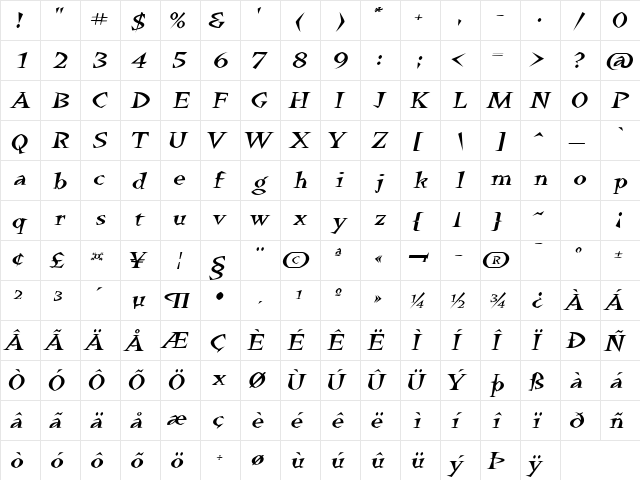
QuetzalcoatlExtended Italic
Design Context for QuetzalcoatlExtended Typeface
QuetzalcoatlExtended is a composed and adaptable typeface that performs quietly and consistently across a wide range of design contexts. The dynamic lean of this cut emphasises speed and emphasis in any layout.
Pro Tip: Use QuetzalcoatlExtended for emphasis, pull quotes, and subheadings where its slanted energy can add rhythm to the layout.